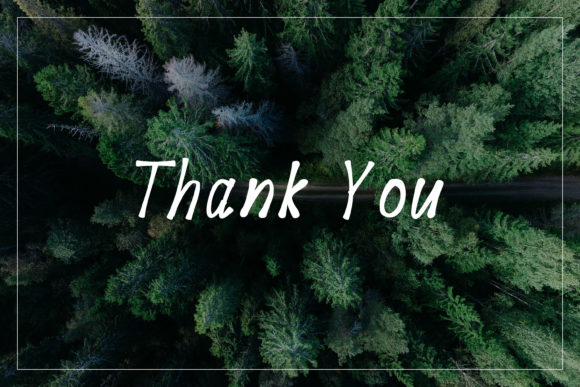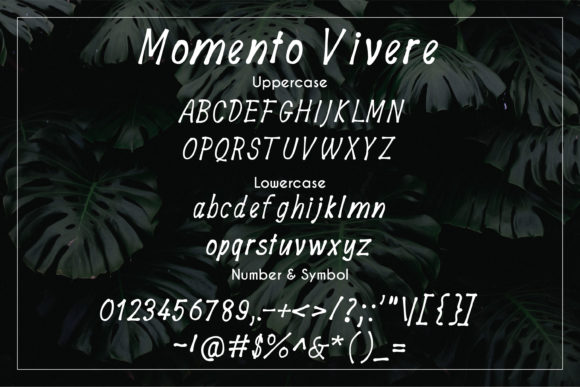
Momento Vivere Font
About Momento Vivere Font
Momento Vivere is a simple and casual looking handwritten font. Whether you’re looking for fonts for Instagram or calligraphy scripts for DIY projects, this font will turn any creative idea into a true piece of art!